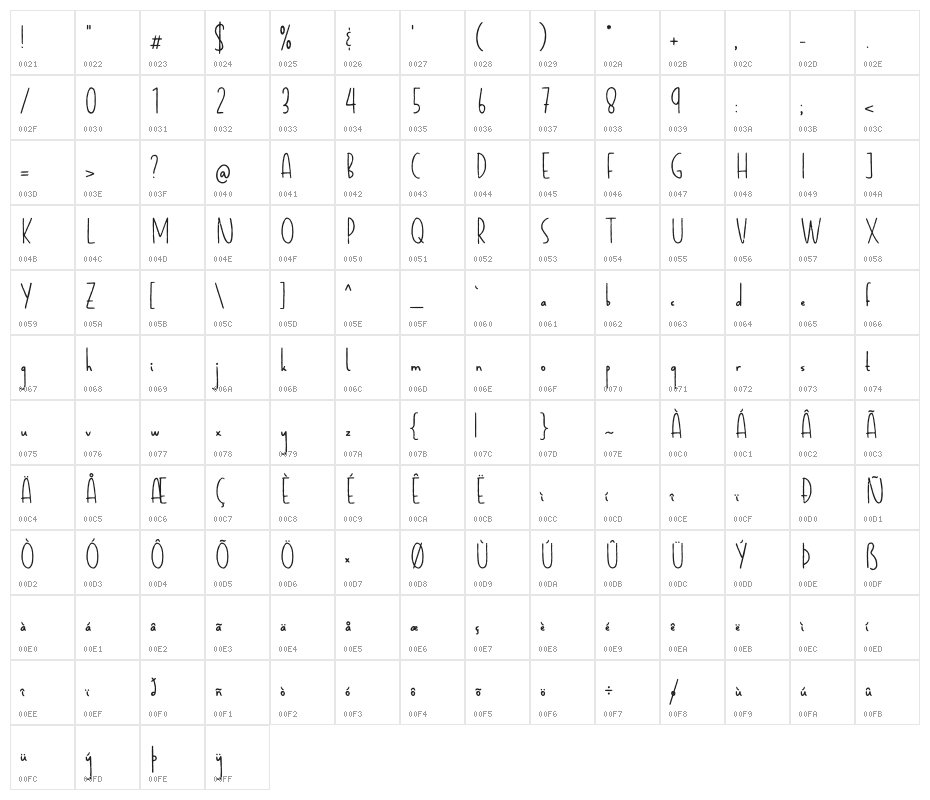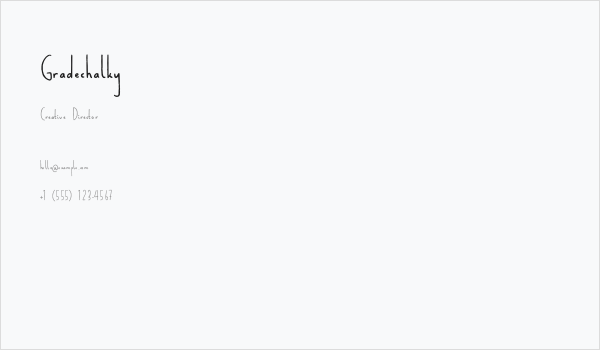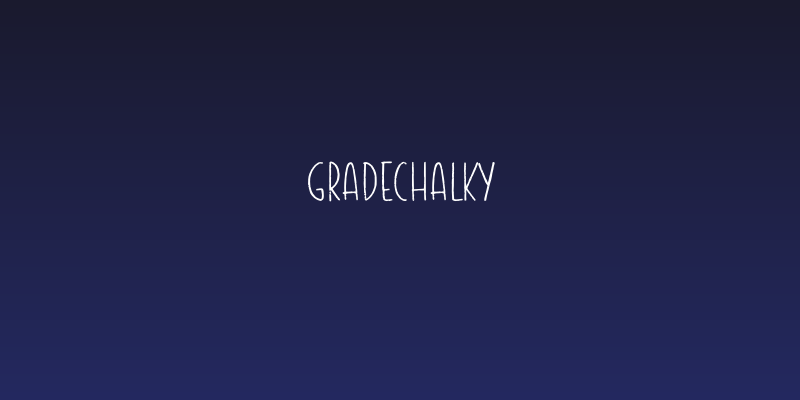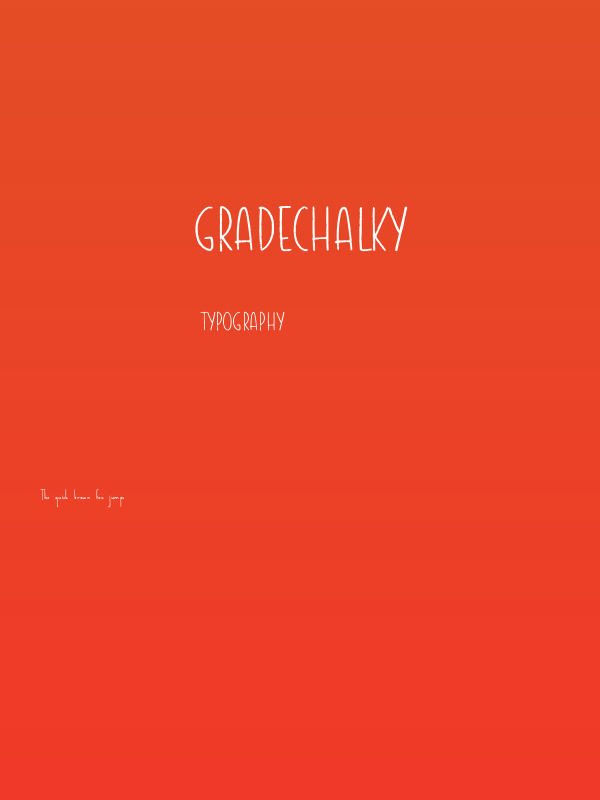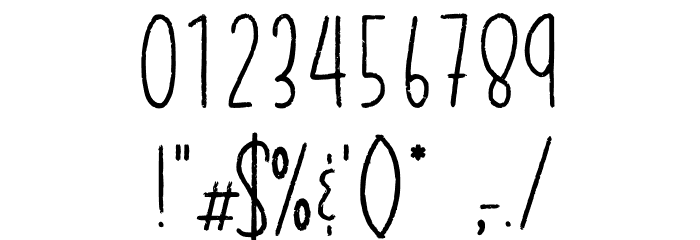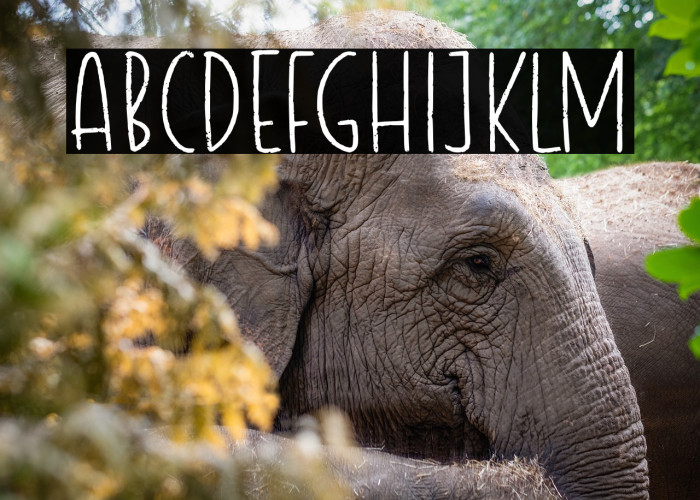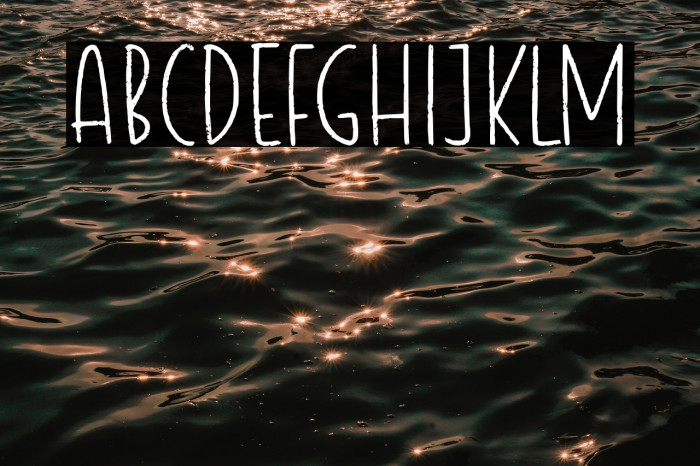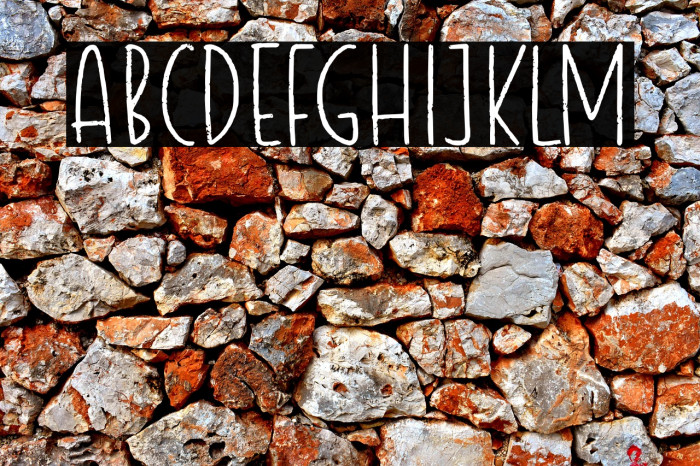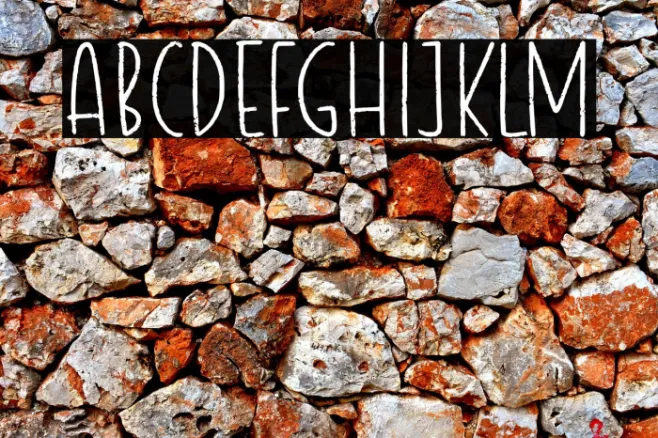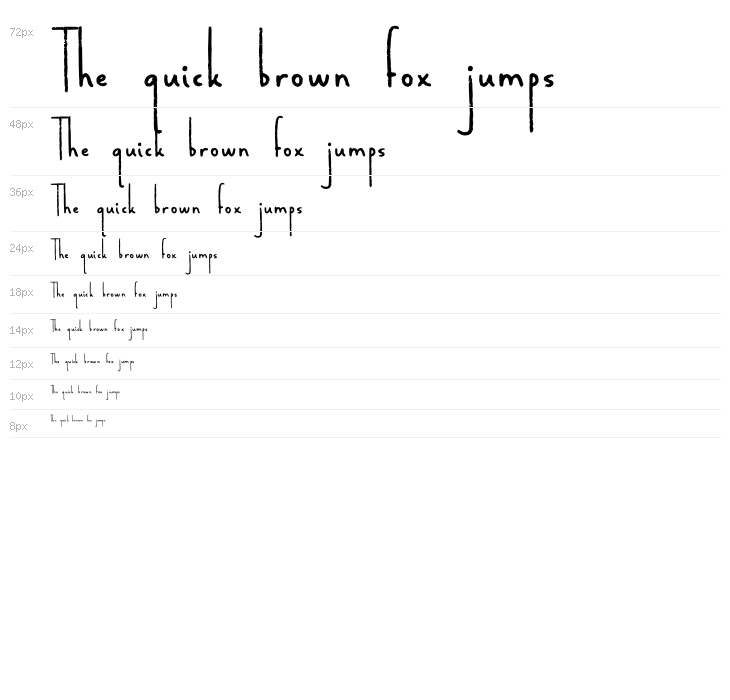
Gradechalky Font
Gradechalky Description
This font features a playful and informal handwritten style, characterized by its uneven strokes and slightly rough texture. The letters have a natural, organic feel, reminiscent of chalk writing on a blackboard. The uppercase letters are tall and narrow, while the lowercase letters maintain a consistent height, adding to the font's casual appearance. The numbers and special characters follow the same hand-drawn aesthetic, making the font suitable for creative and informal projects. Its unique style adds a touch of personality and warmth, making it ideal for designs that require a personal touch.
| Overall Style | Casual |
| Use Case | Headlines, Logos, Informal Text |
| Proposed Projects | Ideal for educational materials, children's books, creative posters, and casual invitations. |